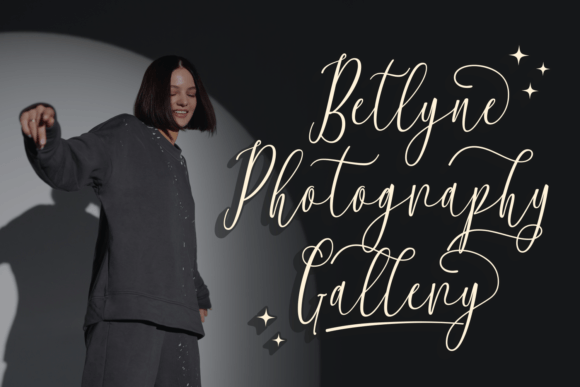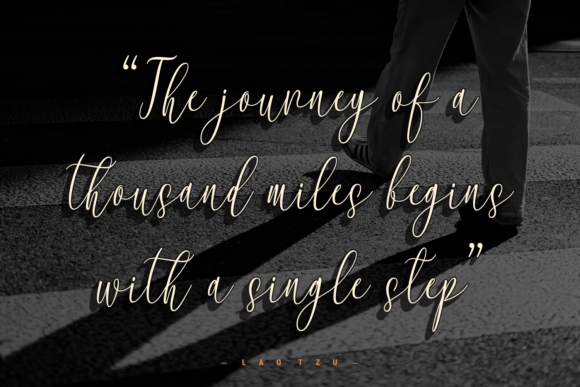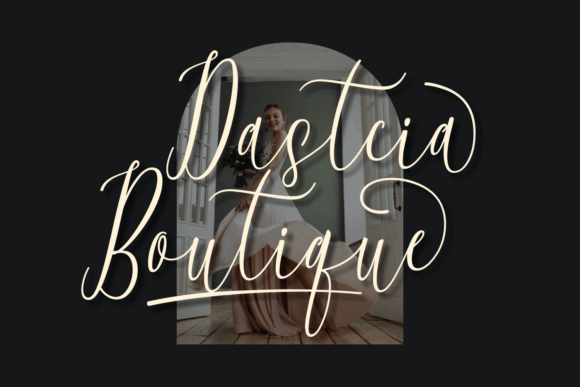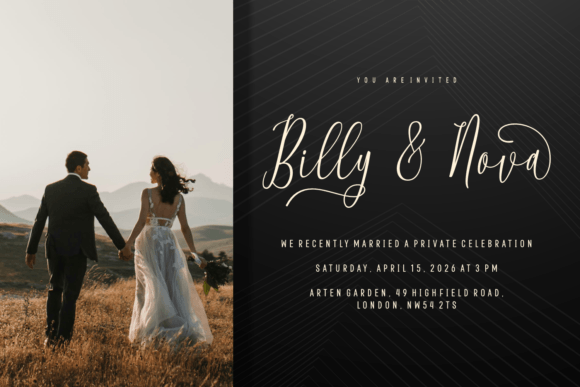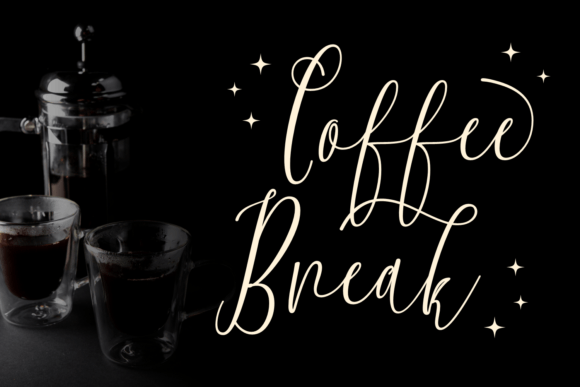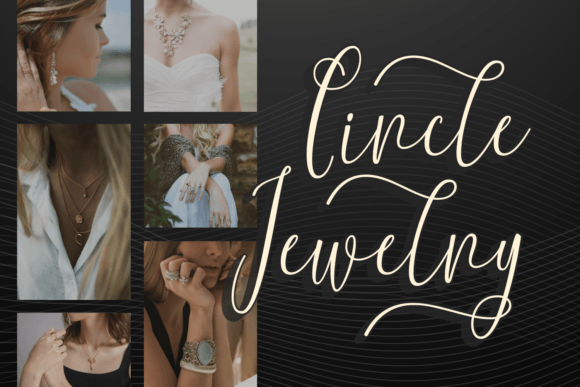
Dastcia Font: Elevate Your Designs with Elegant Script Style
Are you looking for a font that can add a touch of warmth and personality to your designs? Look no further than Dastcia, a charming script font that flows gracefully like handwritten cursive. Its elegant loops and curves give your text a delightful and friendly feel, perfect for a wide range of design projects.
The Characteristics of Dastcia Font
Dastcia is a script font that boasts a unique and elegant style. Its flowing curves and loops give it a handwritten feel that’s both friendly and approachable. The font is designed to mimic the natural flow of handwriting, with varying line widths and subtle imperfections that add to its charm.
One of the standout features of Dastcia is its excellent legibility. Despite its cursive nature, the font is easy to read and understand, making it perfect for use in a variety of design projects, from wedding invitations and greeting cards to branding and advertising materials.
Uses for Dastcia Font
Dastcia is a versatile font that can be used in a wide range of design projects. Here are just a few ideas to get you started:
- Wedding Invitations and Stationery: Add a touch of elegance and romance to your wedding invitations, save-the-date cards, and other stationery with Dastcia.
- Branding and Packaging: Use Dastcia to create a friendly and approachable brand identity for your business. The font is perfect for use on packaging, labels, and other marketing materials.
- Signage and Displays: Dastcia is a great choice for signage and displays, adding a touch of warmth and personality to your message.
- Digital Media: Use Dastcia in your digital media, including social media graphics, email newsletters, and website headers.
Benefits of Using Dastcia Font
There are many benefits to using Dastcia in your designs. Here are just a few:
- Unique and Eye-Catching: Dastcia is a unique and eye-catching font that will help your designs stand out from the crowd.
- Easy to Read: Despite its cursive nature, Dastcia is easy to read and understand, making it perfect for use in a variety of design projects.
- Versatile: Dastcia can be used in a wide range of design projects, from wedding invitations to branding and packaging.
- High-Quality: Dastcia is a high-quality font that’s designed to deliver exceptional results.
Tips for Using Dastcia Font
Here are a few tips for using Dastcia in your designs:
- Use it Sparingly: Dastcia is a bold and eye-catching font, so use it sparingly to avoid overwhelming your design.
- Pair it with a Sans-Serif Font: Pair Dastcia with a sans-serif font to create a striking contrast and add visual interest to your design.
- Experiment with Colors: Dastcia looks great in a variety of colors, so experiment with different hues to find the perfect one for your design.
Dastcia is a charming script font that’s perfect for adding a touch of warmth and personality to your designs. Its elegant loops and curves give your text a delightful and friendly feel, making it perfect for a wide range of design projects. Whether you’re a designer, crafter, or DIY enthusiast, Dastcia is a great choice for anyone looking to add a touch of elegance and sophistication to their work.